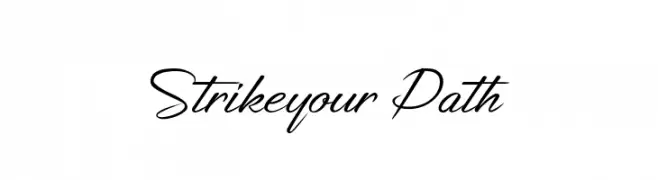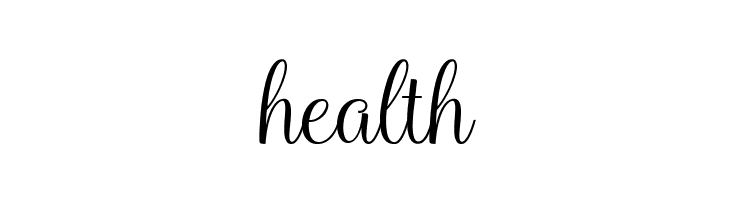
A flowing, elegant script font with connected characters and decorative flourishes.
An elegant, flowing script font with a handwritten style.
A flowing, cursive script with elegant, sweeping strokes and a handwritten appearance.
A modern, elegant script font with flowing curves and sophisticated style.
A graceful and elegant script font with fluid, cursive strokes.
An elegant script font with flowing, cursive letterforms and sophisticated style.
An elegant, cursive script font with a flowing, handwritten style.
A cursive, handwritten font with elegant curves and a sophisticated style.
A sophisticated script font with elegant loops and swashes.
A graceful, slanted script font with elegant curves and high contrast.